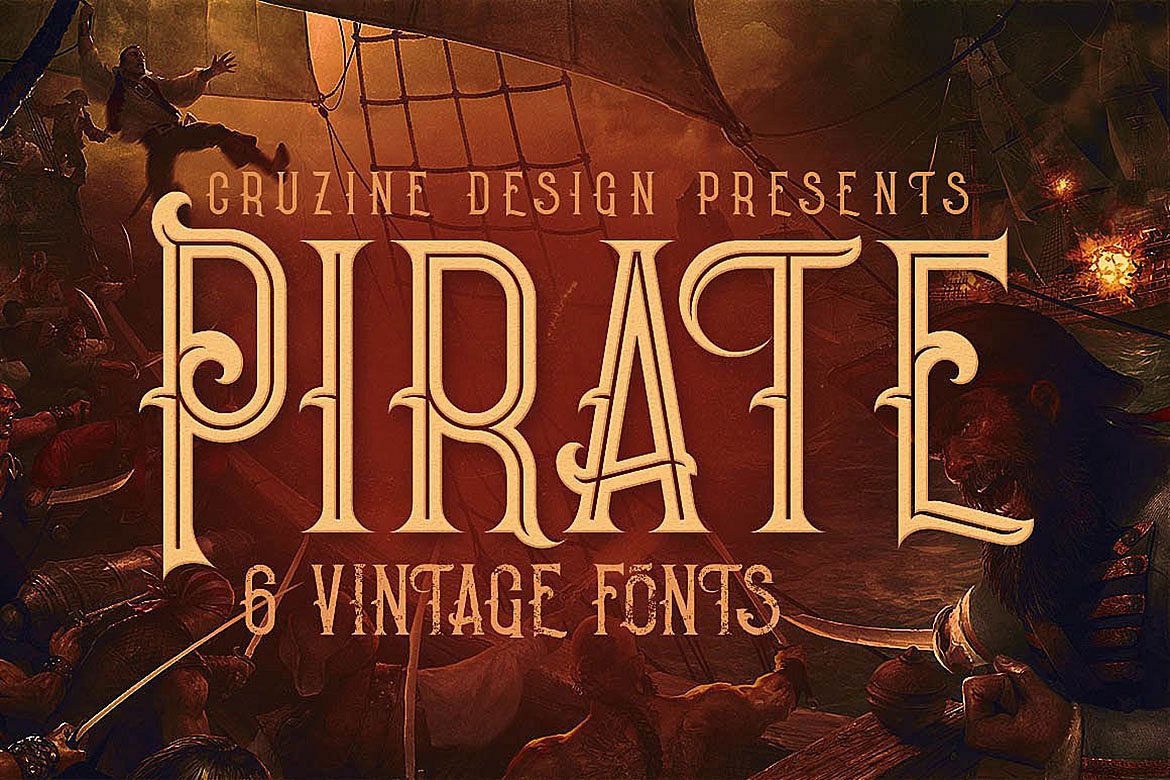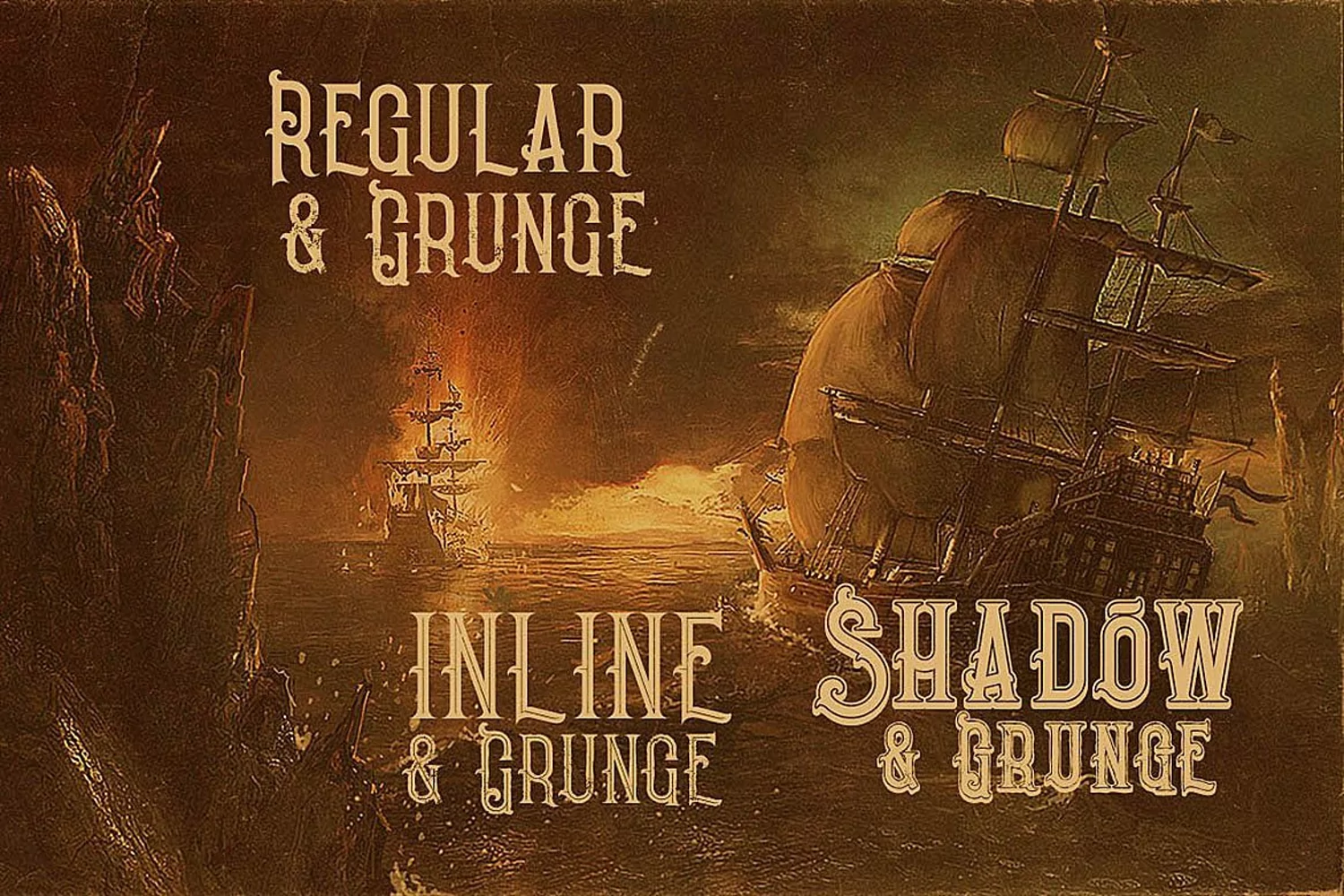
Pirate- Vintage Style Font
Unique retro or vintage style custom serif font with 6 styles: regular and grunge, inline and inline grunge, shadow and shadow grunge.